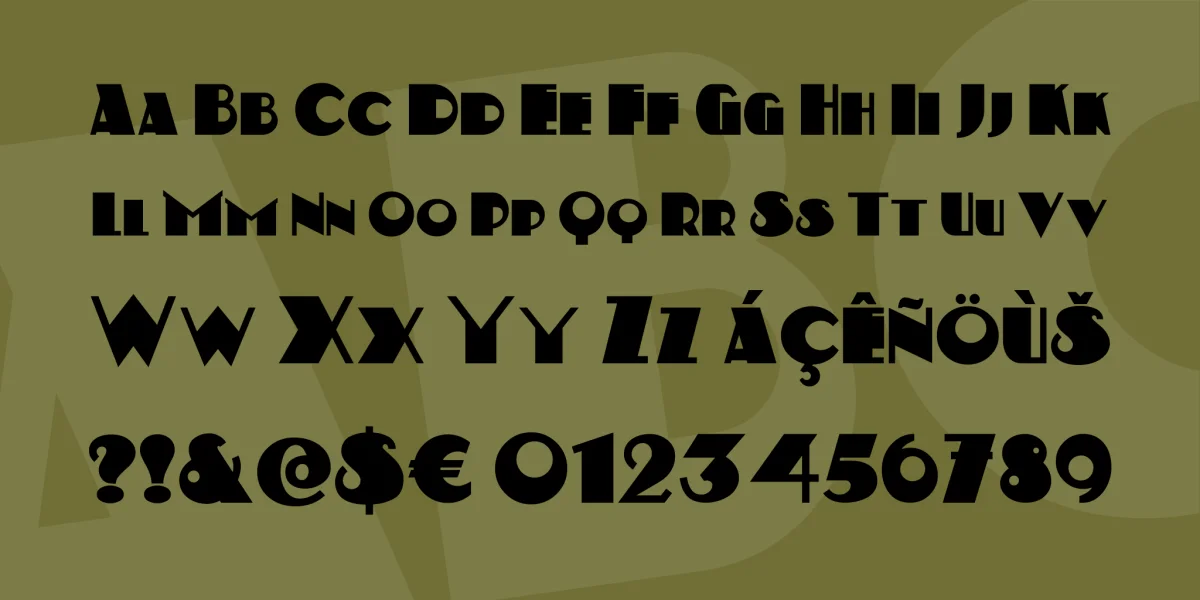
Based on handlettering on a poster by Dutch designer C. J. van der Hoef from 1920, and named with a bit of Scottish slang meaning “commotion,” which seems pretty appropriate for this frantic font.